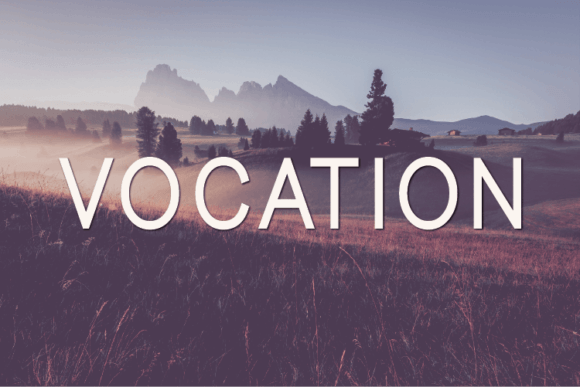
**Captivating Your Audience with Vocation Font**
As you embark on a journey to find the perfect font for your creative endeavors, let us introduce you to Vocation, a captivating sans serif masterpiece that will leave an unforgettable impression on your audience.
**A Font Designed for Young Minds**
Vocation was meticulously crafted with the intention of catering to the boundless imagination of children. Its playful yet sophisticated curves evoke a sense of wonder and curiosity, making it the ideal choice for captivating children's books, educational materials, and anything that aims to engage young minds.
**A Font that Inspires**
Beyond its whimsical nature, Vocation possesses an underlying elegance that empowers you to convey important messages with style. Its clean lines and well-balanced proportions make it an excellent choice for logos, invitations, quotes, advertisements, and any design that seeks to convey a touch of sophistication.
**Adaptable for Any Occasion**
Vocation's adaptability is truly remarkable. Its versatile nature allows it to seamlessly transition from playful to professional, from whimsical to elegant, making it the perfect choice for a wide range of projects. Whether you're crafting a charming children's book or a sleek business presentation, Vocation will effortlessly adapt to your vision.
**Crafted with Precision**
The creator of Vocation, A Christie, has poured their heart and soul into every curve and line of this typeface. Their dedication to detail is evident in the font's clean, crisp appearance that ensures exceptional readability and visual appeal, no matter the size or format.
**A Font that Evokes Emotions**
Vocation is more than just a collection of letters; it's an emotional journey that will captivate your audience. Its ability to convey a range of emotions, from joy and playfulness to sophistication and elegance, makes it a powerful tool for expressing yourself and connecting with your readers or viewers.
**Experience the Magic of Vocation**